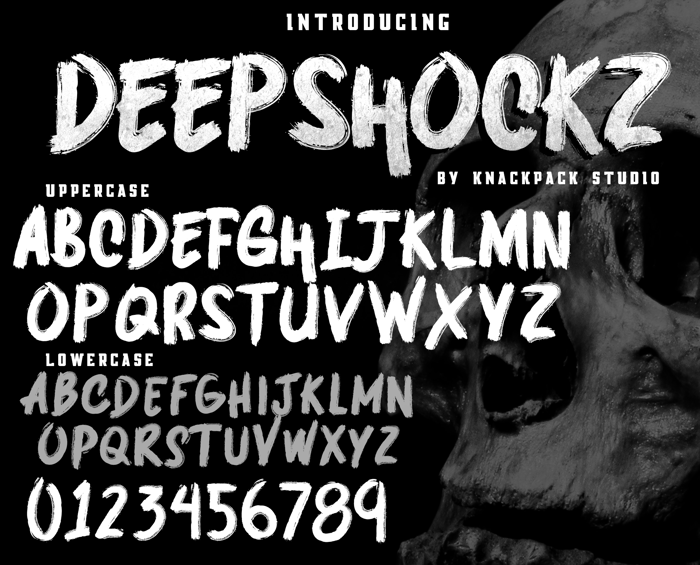
DEEPSHOCKZ DEMO Font
DEEPSHOCKZ
- Bold brush inspired font perfect on your school projects, covers, etc.
- Lifestyle modern textured stroke font for branding, website, mobile app etc.